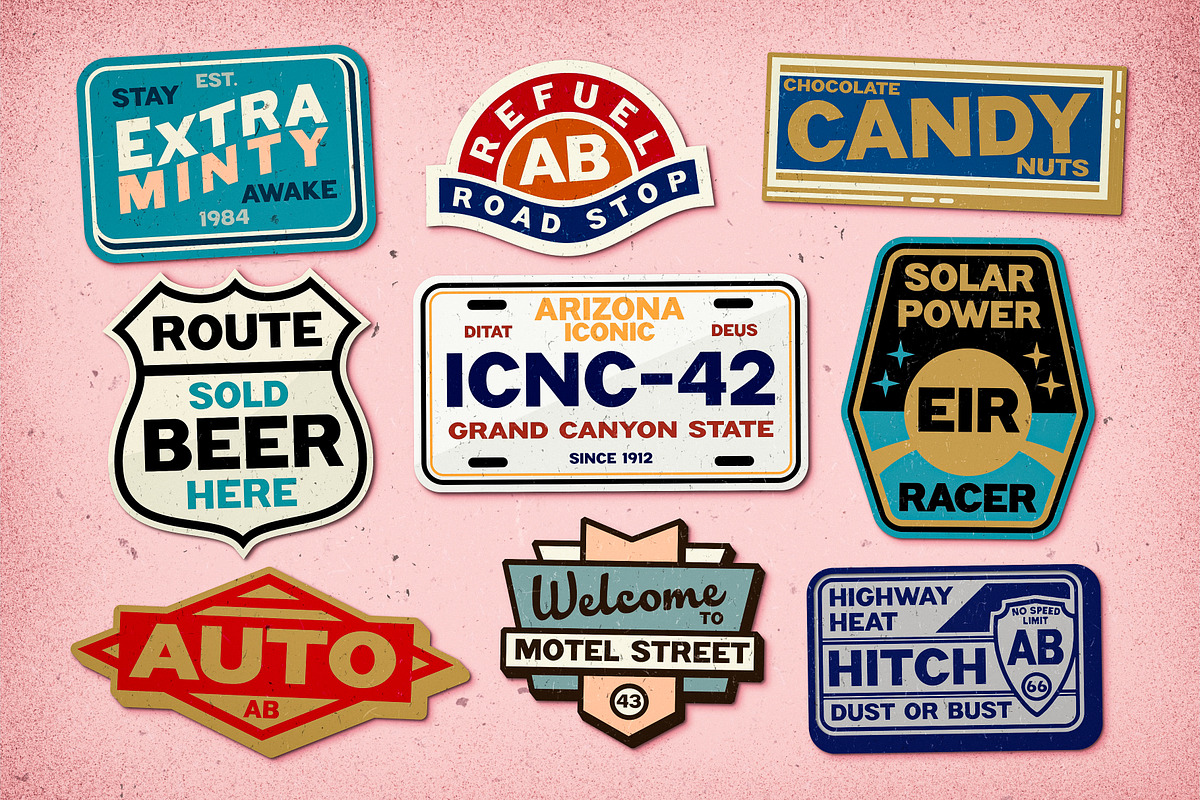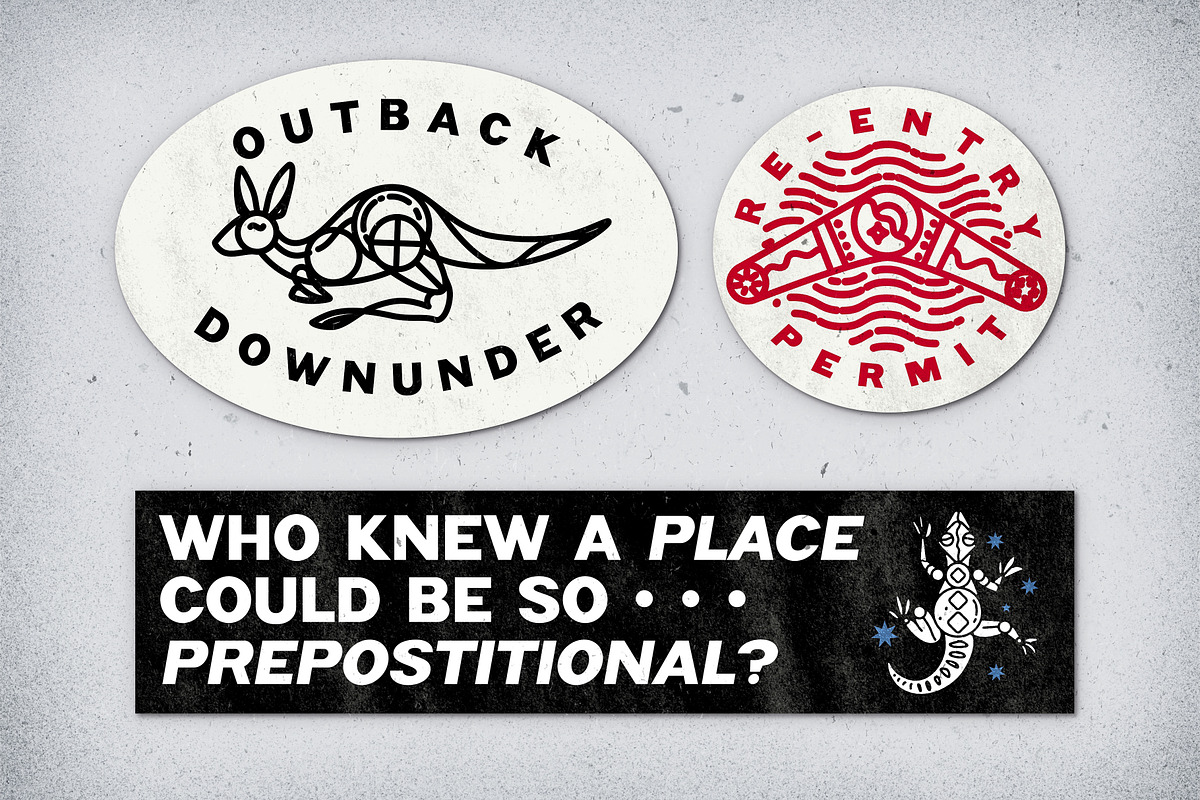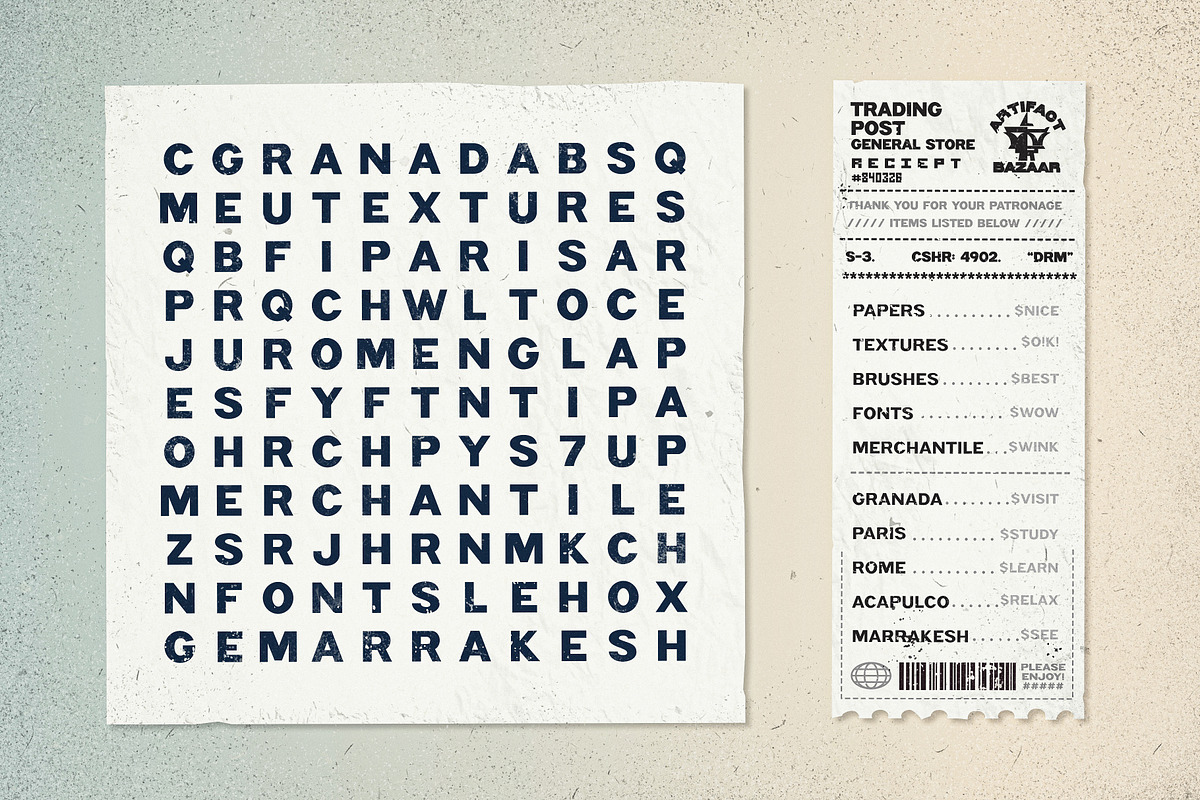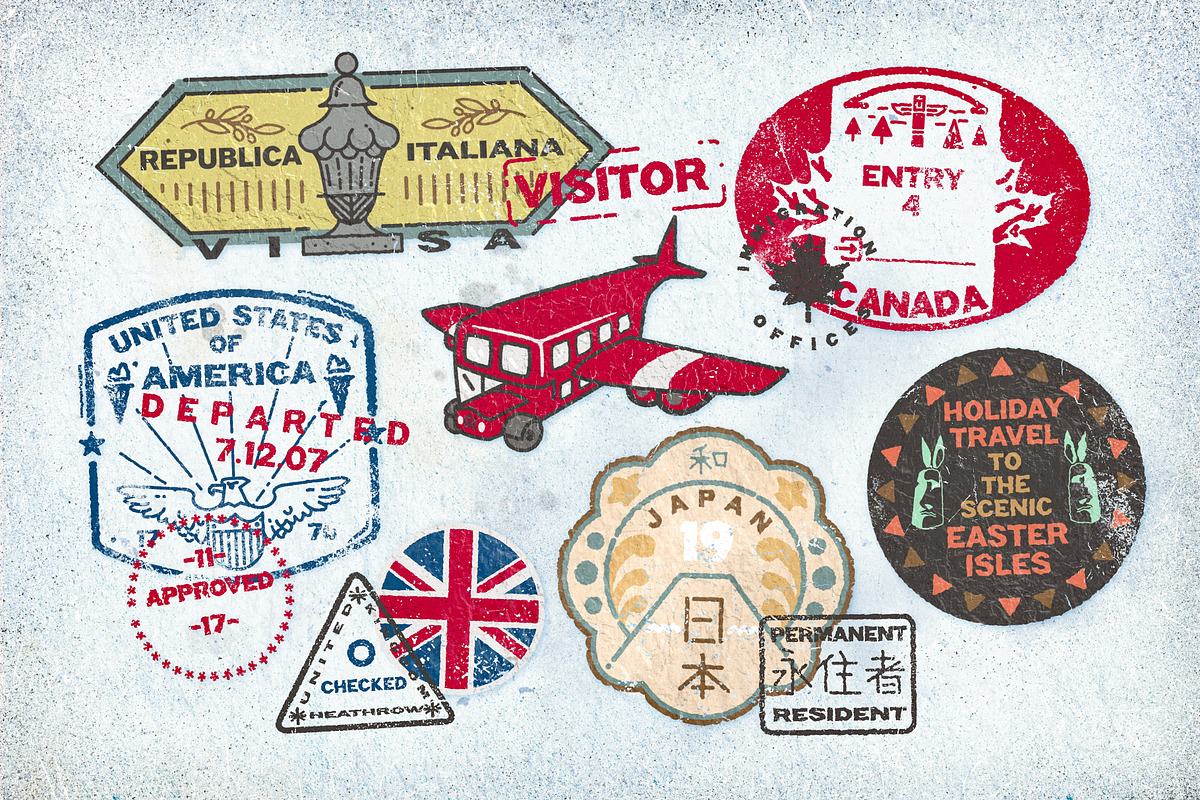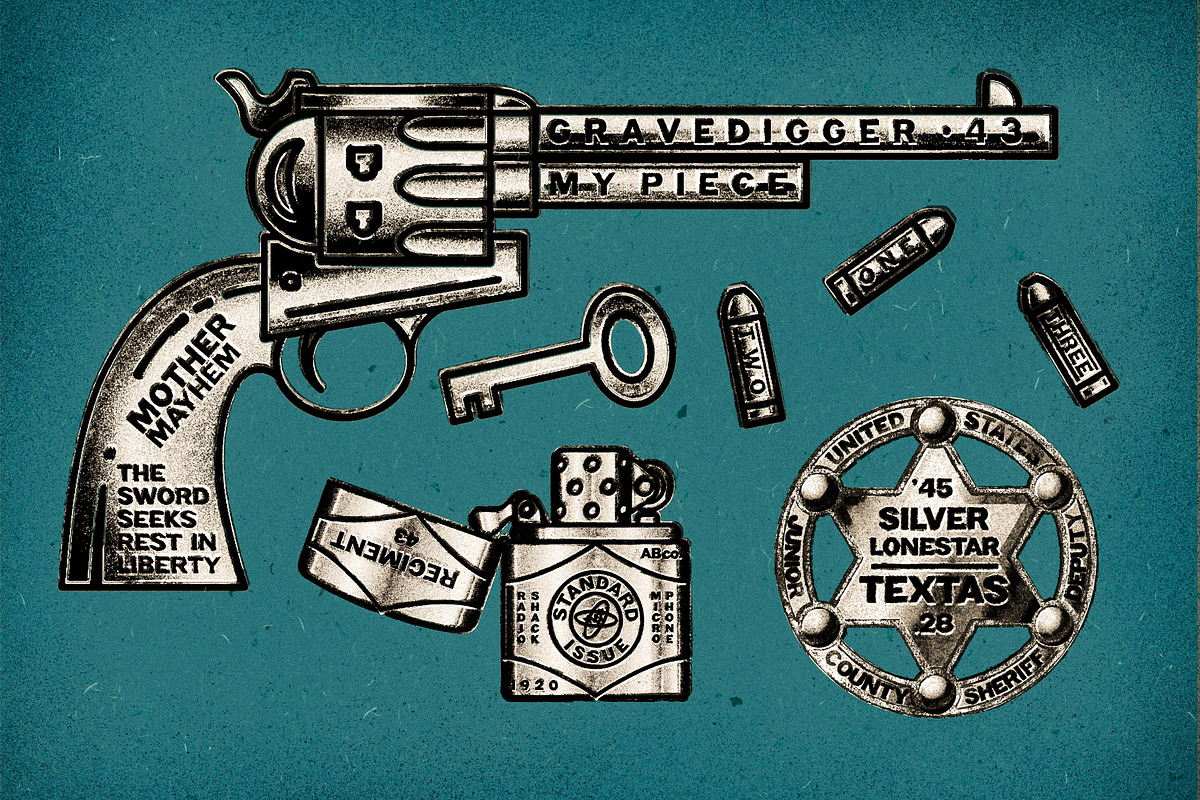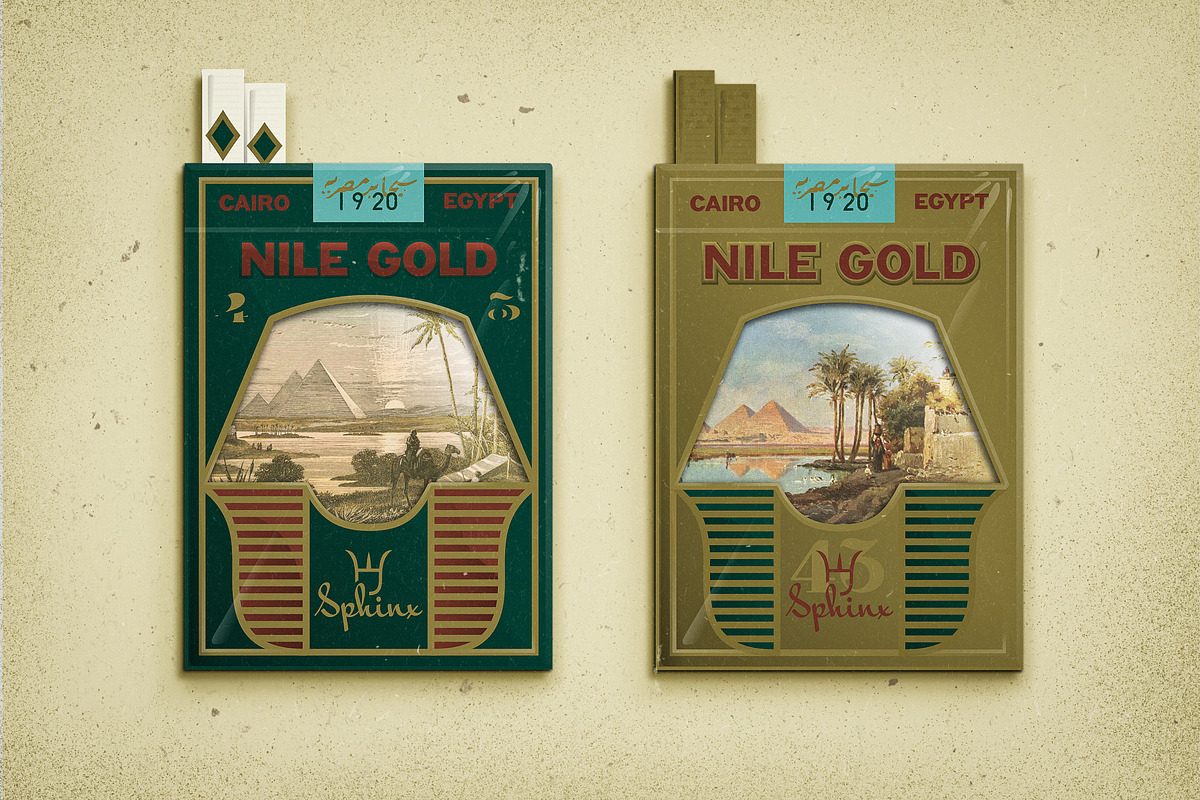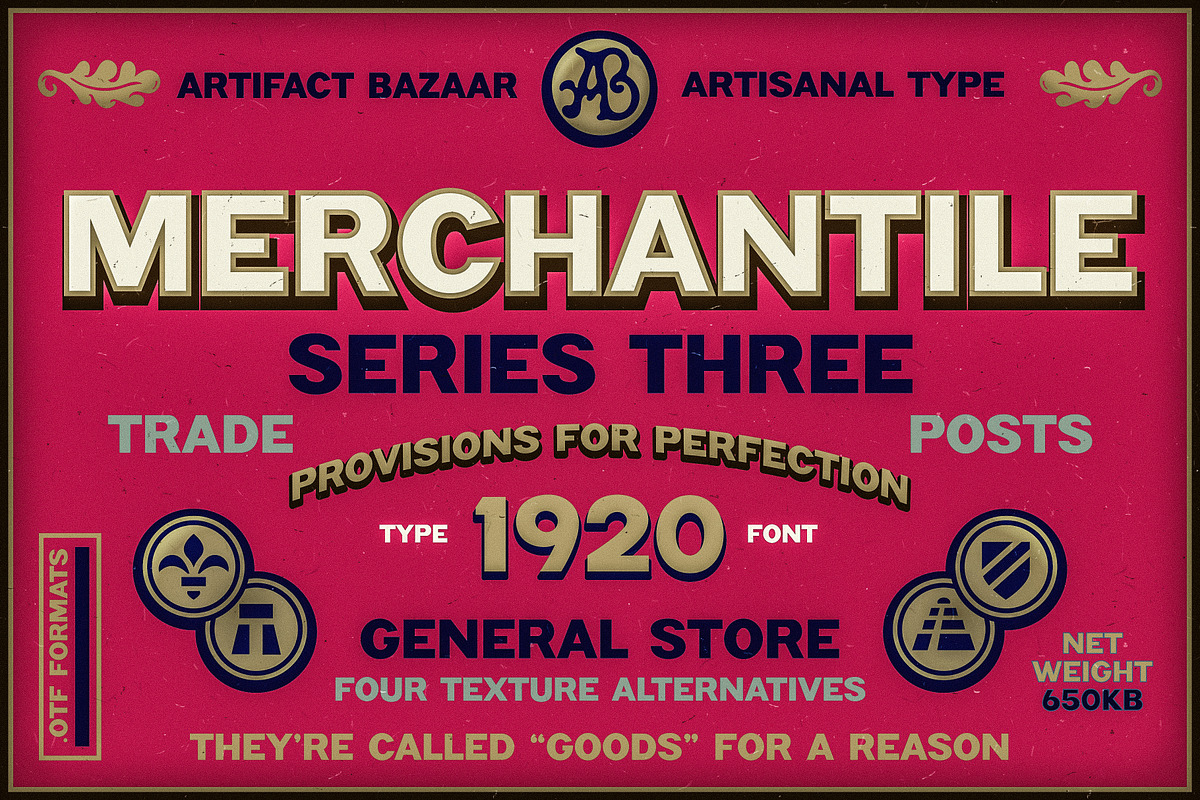
Merchantile | Bold Wide Sans
The General Store of fonts. Good on everything. Fine-tuned to last - present, future, and past.
- 2 Styles
- 4 Texture Variations to obscure repetitive glyphs (in Caps & Lower Case)
- All punctuation and special characters